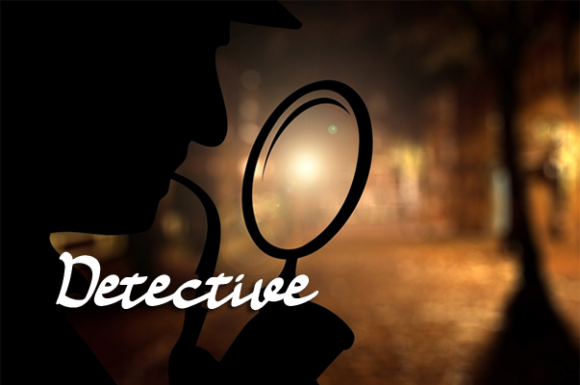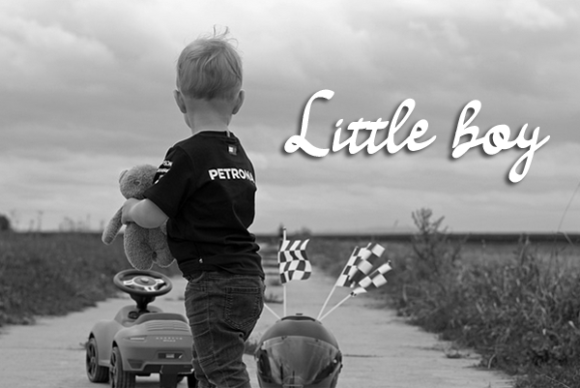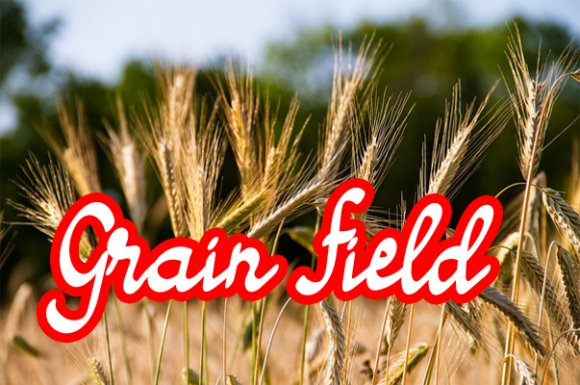
The Magic of Fantasy Font: Elevate Your Designs with a Stylish Handwritten Touch
Have you ever been in the middle of a design project, and suddenly, you just can’t seem to find the right font to bring your vision to life? I recall a particularly frustrating experience while working on a client’s wedding invitation project. The design was almost perfect, but the font I was using just didn’t have that special something. That’s when I stumbled upon the Fantasy Font, and it completely transformed my design. In this article, we’ll dive into the world of Fantasy Font, exploring its features, uses, and some helpful tips and tricks to make the most of this beautiful handwritten font.
A Personal Review: What I Love About Fantasy Font
Fantasy Font has quickly become one of my go-to fonts for a variety of design projects. Here are some things I love about it:
- ✨ Delicate and stylish: Fantasy Font has a unique, elegant feel that adds a touch of sophistication to any design.
- ✅ Versatile: This font looks lovely on a wide range of designs, from wedding invitations to branding materials and more.
- 💫 Customized touch: Fantasy Font allows you to add a personal touch to your designs, making them stand out from the crowd.
While Fantasy Font is an amazing addition to any design project, there are a few things to keep in mind:
- ⚠️ Legibility at small sizes: Like many handwritten fonts, Fantasy Font can be a bit tricky to read at very small sizes. Make sure to test it out at different sizes to ensure it’s still legible.
- 🤔 Overuse: While Fantasy Font is beautiful, using it excessively can make your design look cluttered. Balance is key when working with this font.
The Story Behind Fantasy Font
Fantasy Font was designed with the intention of creating a beautiful, elegant handwritten font that could be used in a variety of design projects. The designer aimed to create a font that was both stylish and delicate, with a touch of sophistication.
| Font Name | Fantasy Font |
| Author | AA studio |
| What is Fantasy Font best used for? | Fantasy Font is perfect for designs that require a customized, elegant touch, such as wedding invitations, branding materials, and social media graphics. |
| Is Fantasy Font suitable for body text? | While Fantasy Font is beautiful, it’s best used for headings and titles. For body text, a more legible font would be recommended. |
| Is Fantasy Font available in different styles? | Fantasy Font may come in different styles or variations, but it’s best to check with the font designer or foundry for specific options. |